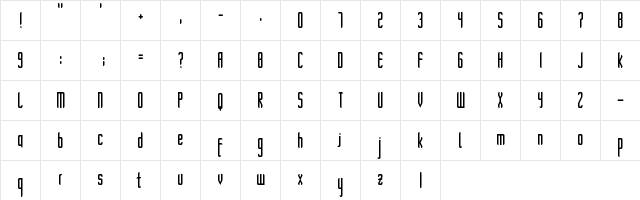
new one Regular Font Preview
new one Regular
new one Regular Font Details
| Designer | danielacruz |
Design Context for new one Typeface
new one takes a measured approach to typography — its balanced proportions and neutral character make it a reliable workhorse for both digital and print work.